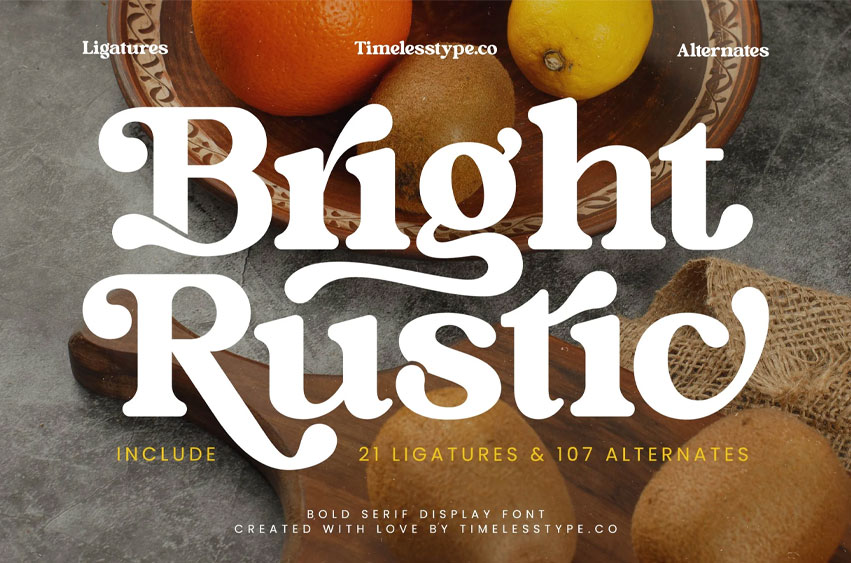
Bright Rustic Font
Bright Rustic Font is a bold serif display font that blends classic craftsmanship with a warm rustic charm. Featuring thick curves, expressive serif strokes, and elegant swashy details, this typeface is designed to bring an artisanal, handcrafted aesthetic to your visual projects. Whether used for branding, packaging, editorial headlines, café menus, or vintage-inspired logos, Bright Rustic delivers a striking and memorable look.
Equipped with 21 refined ligatures and an impressive 107 stylistic alternates, this font gives you complete creative flexibility to build custom lettering compositions with flair. Every character is crafted to balance boldness and sophistication, making Bright Rustic a perfect choice for designers who want both personality and polish.